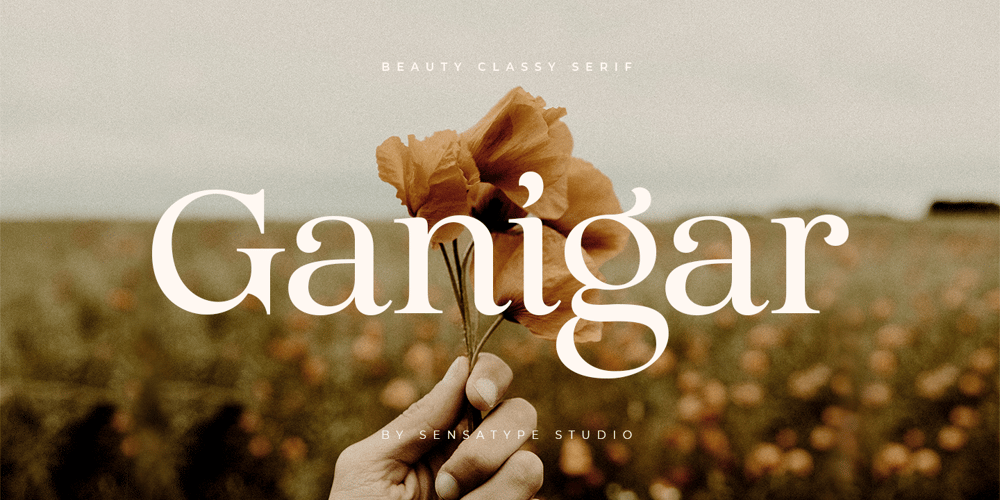
Ganigar Style Font Family was designed by Zamroni Hamzah and published by Sensatype Studio. Ganigar Style contains 1 styles and family package options. Ganigar is a sans serif font with luxury, elegant, modern, unique and classy-look. This font crafted specials for luxury-themed projects, ready to use on Magazine, Social Media, Branding, Logo, and Many more that needs Luxury touches.Glamour is also included full set of: uppercase and lowercase letters multilingual characters numerals punctuation Wish you enjoy our font and if you have a question, don’t hesitate to drop message & I’m happy to help ๐